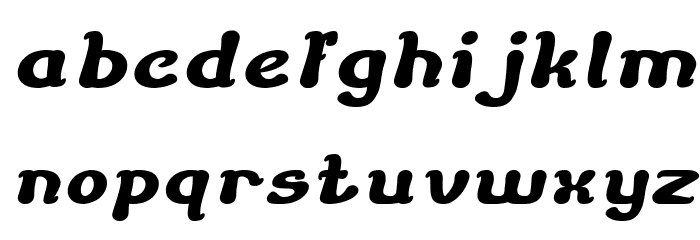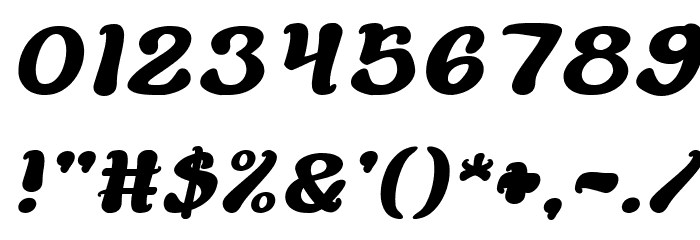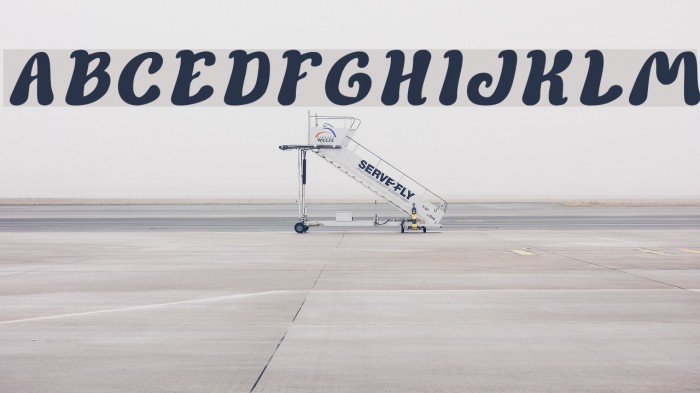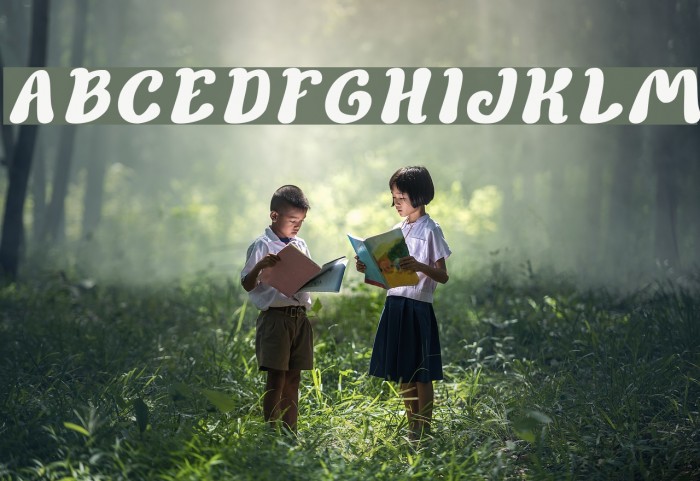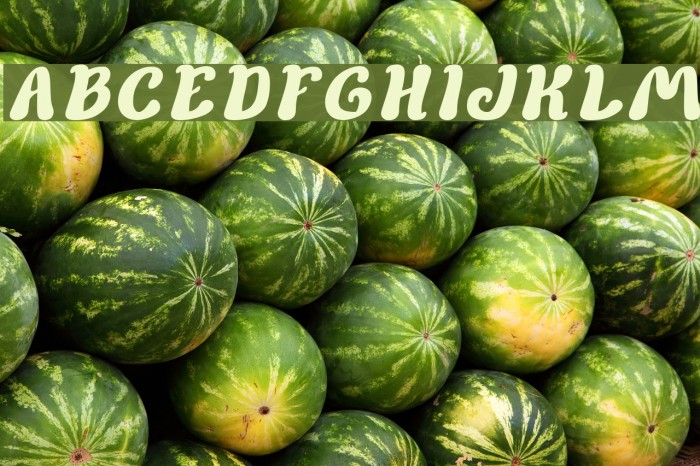
Children Stories Italic Font
This playful and whimsical font features a bold and rounded style with a slight slant, giving it an italic appearance. The characters are generously spaced, enhancing readability while maintaining a fun and informal look. The uppercase letters are slightly larger than the lowercase, with a consistent stroke width throughout. The numbers and special characters follow the same playful design, making the font versatile for various uses. Its smooth curves and friendly appearance make it ideal for children's content, adding a touch of creativity and joy to any project.
A playful, bold, and italic font with rounded characters, perfect for children's content.
- Proposed Projects: Ideal for children's books, playful branding, educational materials, and creative posters.
- Character Spacing: Wide
- Overall Style: Playful
- Use Case: Headlines, Logos, Children's content